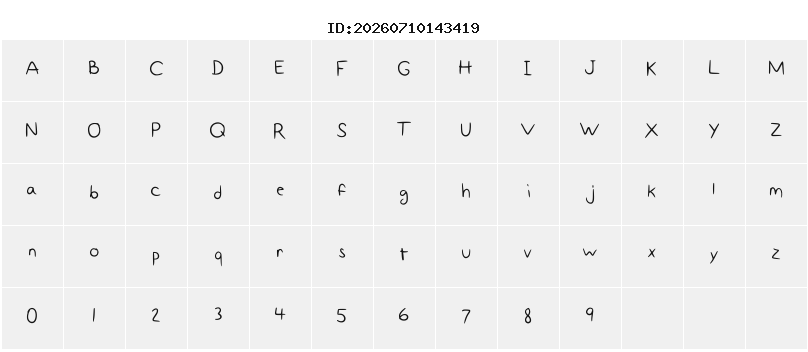
Fancy Not Preview
• Font Name: Fancy Not
• Full Font Name: Fancy Not Medium
• PostScript Name: Fancy Not
About Fancy Not.ttf
Fancy Not.ttf is a modern, elegant sans-serif font designed for ultimate readability and visual harmony. Perfect for branding, headlines, web design, and print materials.